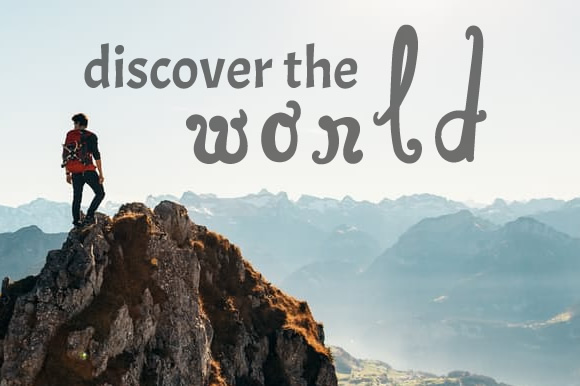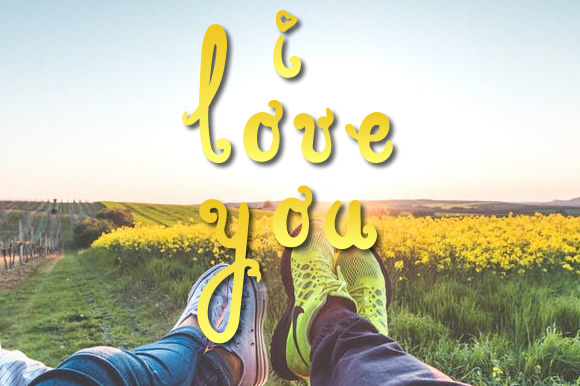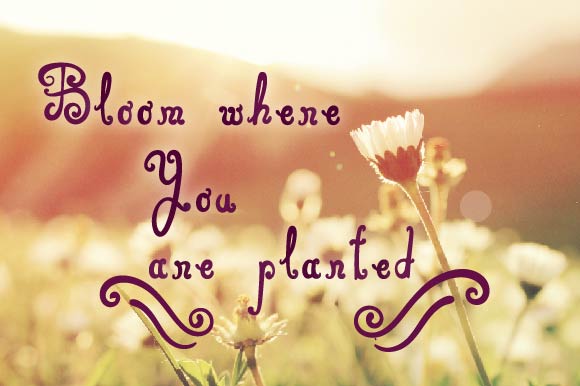
Eva Script Font: A Cute and Playful Hand-Drawn Font for Designers and Crafters
The Eva Script font is a delightful addition to the world of typography, offering a fresh and playful take on hand-drawn fonts. Created by Creatoria Designs, this charming font is perfect for designers and crafters looking to add a touch of whimsy to their projects. In this article, we’ll dive into the features and benefits of the Eva Script font, exploring its versatility, readability, and uses in both print and digital applications.
A Hand-Drawn Font with a Personal Touch
The Eva Script font is a meticulously crafted, hand-drawn font that exudes a sense of personality and charm. Every letter is carefully designed to be packed with details, making it a standout among other fonts in its category. The attention to detail is evident in the font’s intricate strokes, curves, and flourishes, which give it a unique and artistic feel.
One of the key benefits of the Eva Script font is its versatility. Its playful and yet elegant design makes it suitable for a wide range of projects, from digital invitations and social media graphics to print materials like brochures, posters, and business cards. Whether you’re designing for a client or working on a personal project, the Eva Script font is sure to add a touch of personality and style.
Easy to Read and Understand
While the Eva Script font is intricate and detailed, it remains surprisingly easy to read. The font’s creator has carefully balanced the level of detail with legibility, making it perfect for use in both print and digital applications. This means that you can use the Eva Script font for body text, headings, and titles, without worrying about it being difficult to read.
The Eva Script font is a dream come true for designers and crafters. Its unique and playful design makes it perfect for a wide range of creative projects, from scrapbooking and card making to digital art and illustration. Whether you’re a professional designer or a hobbyist crafter, the Eva Script font is sure to inspire your creativity and add a touch of personality to your work.
Key Features of the Eva Script Font
- Hand-drawn design: Each letter is carefully crafted to be unique and full of personality.
- Playful and elegant: The font’s design is both playful and elegant, making it perfect for a wide range of projects.
- Highly detailed: Every letter is packed with intricate details, making it a standout among other fonts.
- Easy to read: Despite its intricate design, the font remains easy to read and understand.
- Versatile: Suitable for use in both print and digital applications, including digital invitations, social media graphics, brochures, posters, and more.
Tips for Using the Eva Script Font
To get the most out of the Eva Script font, here are a few tips to keep in mind:
- Use it as a headline font: The Eva Script font is perfect for use as a headline font, adding a touch of personality and style to your titles and headings.
- Pair it with a simple font: For body text, pair the Eva Script font with a simple, easy-to-read font to create a beautiful contrast.
- Experiment with colors and textures: The Eva Script font looks great in a variety of colors and textures, so don’t be afraid to experiment and find the perfect combination for your project.
| Font Name | Eva Script Font |
| Author | Creatoria Designs |
The Eva Script font is a delightful addition to the world of typography, offering a fresh and playful take on hand-drawn fonts. With its intricate design, ease of readability, and versatility, it’s perfect for designers and crafters looking to add a touch of personality to their projects. Whether you’re working on a digital or print project, the Eva Script font is sure to inspire your creativity and add a touch of style.